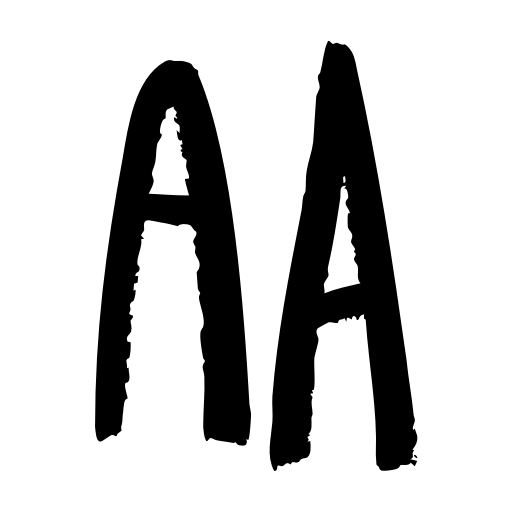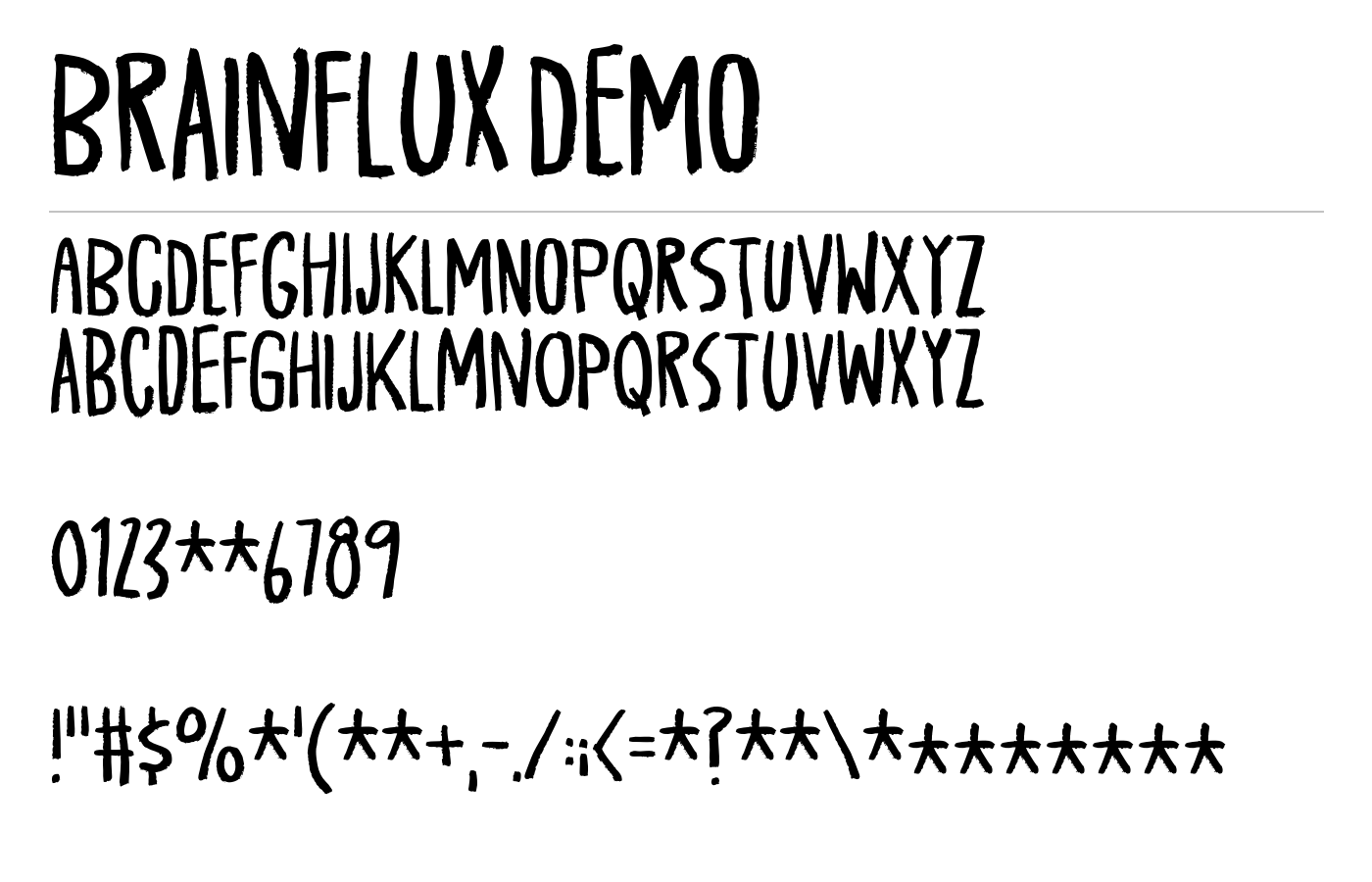
Brainflux DEMO is a playful, hand-drawn sans serif font featuring tall, narrow uppercase letters with a textured, imperfect stroke that adds a casual, quirky charm. Its uneven lines and organic feel make it perfect for creative projects seeking an informal, approachable vibe, such as posters, comics, or children’s designs. This font works well in display use where personality and originality are key.
Brainflux DEMO Font
About Brainflux DEMO Font